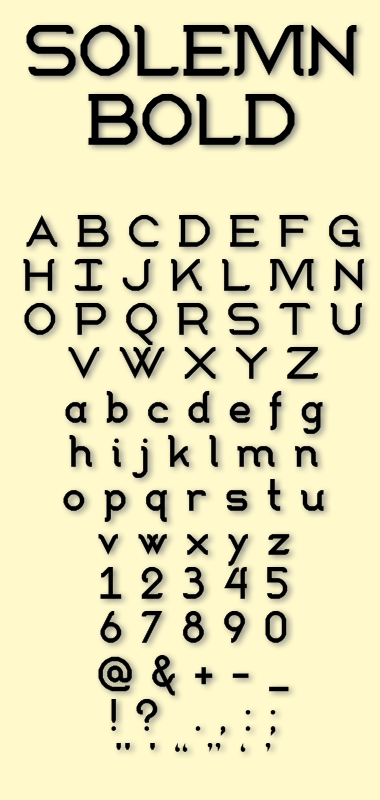
This works so well in bold ... you really get maximum value from those delightful curves.
Looks marvelous. M,N,W are superb. The same applies to the punctuation marks. Impeccable design. I'd love to see an even heavier version, but by looking at some lc letters (e,s,w) and it is quite clear that this is the maximum. Congratulations. 10/10
very compelling. the additional weigh adds a certain intensity to the passion :)
Because the link between two characters is more pronounced in this version, I would love to see all horizontal strokes to end abruptly so the chances of two letters seemingly merge into one is more emphasized. What I mean to say is, maybe have an alt. E with the top and bottom bars not bent in so when E and N are written next to each other, N looks like a continuation of E. &c. I'm not explaining it very well, but you understand though, right?
With what I do understand in thalamic's comment, I have to disagree. I think it would be very hard to read this font if the suggestion was followed. Perhaps the M and N could connect, but not the E. And some of the lowercase letters, like s and o, make it almost impossible to do such a thing.
Though, I do like this font.
Oh I agree, aaaalllleeeexxxx. It will make it harder to read. But so much cooler as well. And we all give way to cool sooner or later. After all, the world is turning Mac/OSX, right? ;-)
Do mean something like this? Or, do you mean they should actually touch?
Yes, exactly.